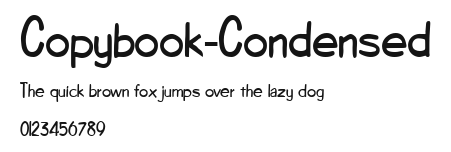
• Font Name: Copybook-Condensed
About Copybook-Condensed.ttf
Copybook-Condensed.ttf is a modern, elegant sans-serif font designed for ultimate readability and visual harmony. Perfect for branding, headlines, web design, and print materials.